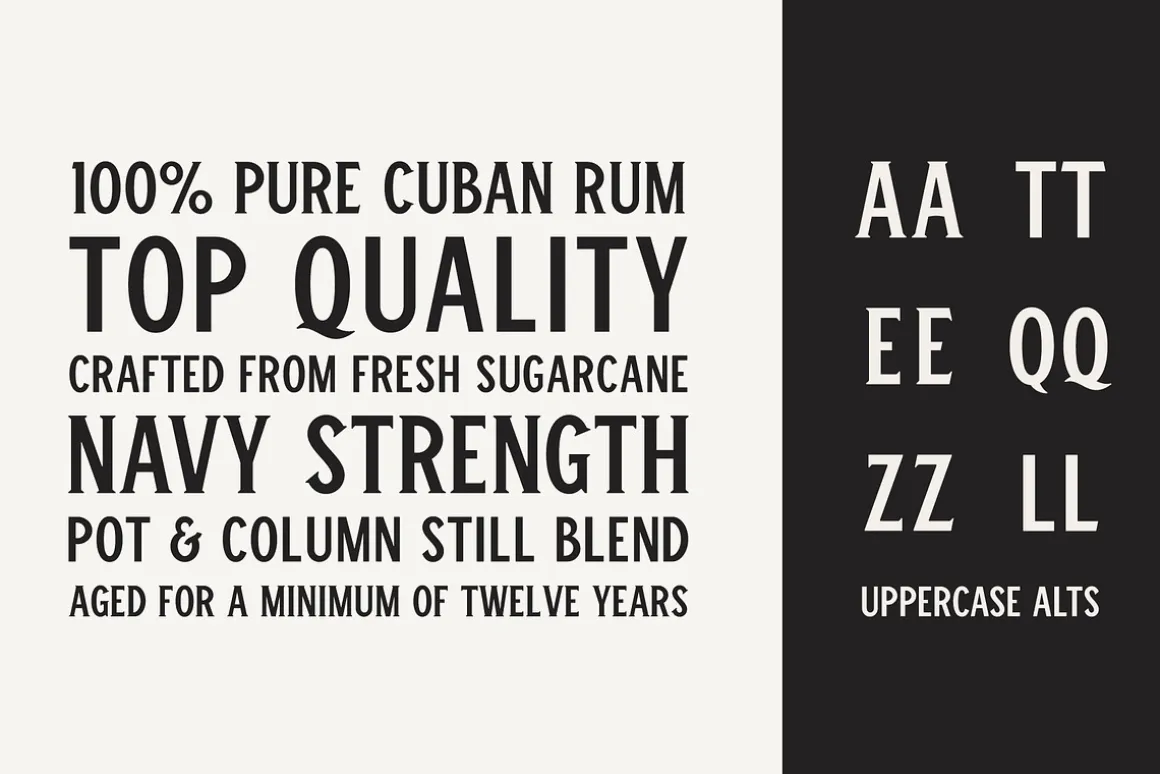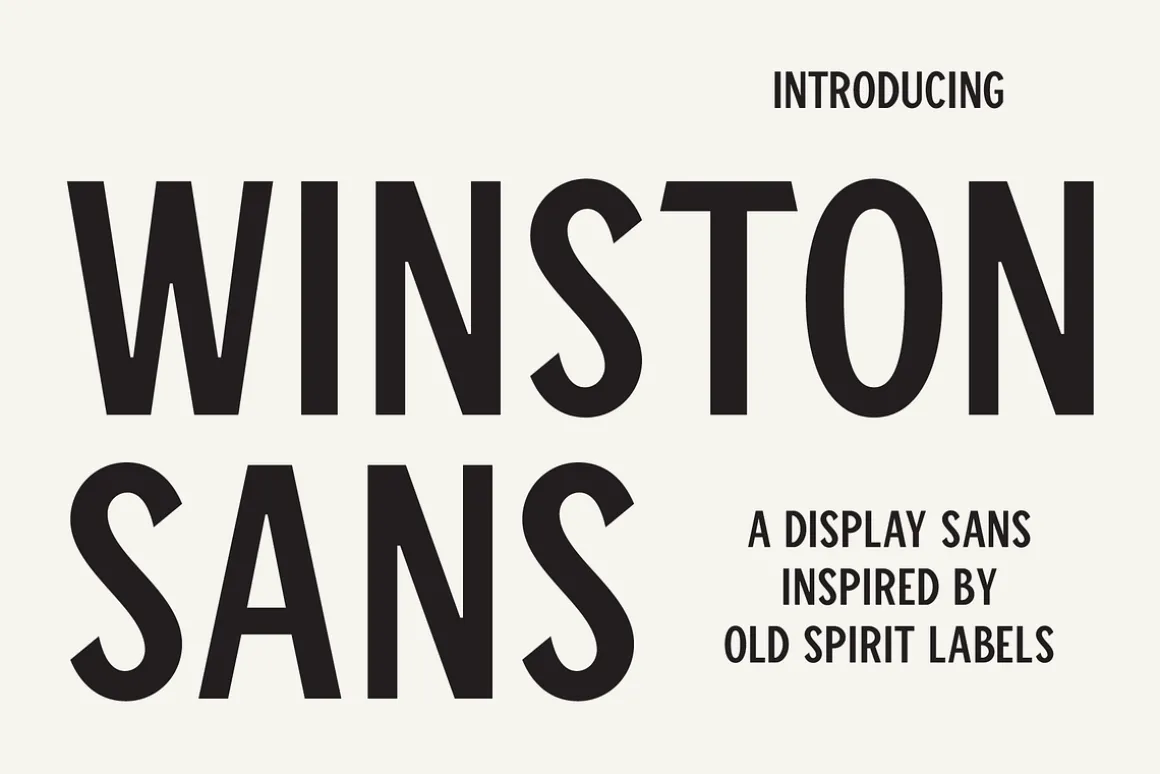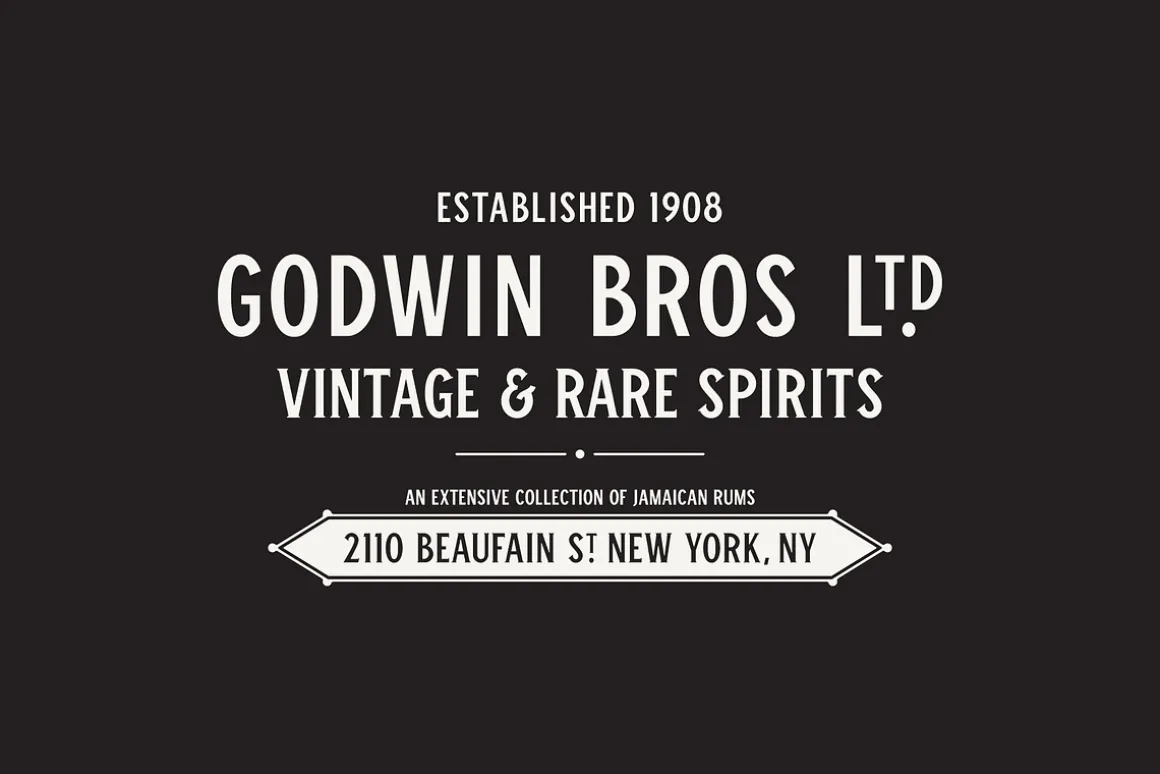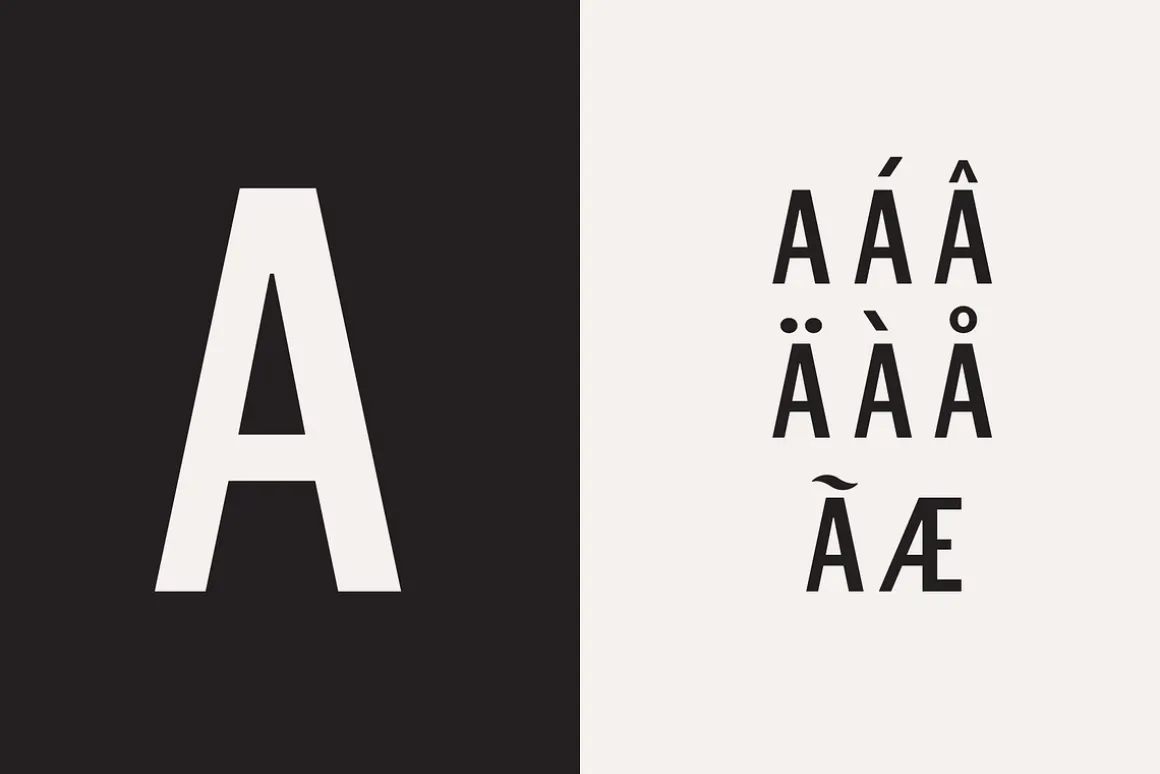
Inspired by old spirits labels, the Winston family is a perfect mix of vintage and modern. Winston Sans is great for brand identity, package design, poster design, and more!
- Sans Serif typeface
- All Caps typeface
- Capital letter alts
- US and Western European language support